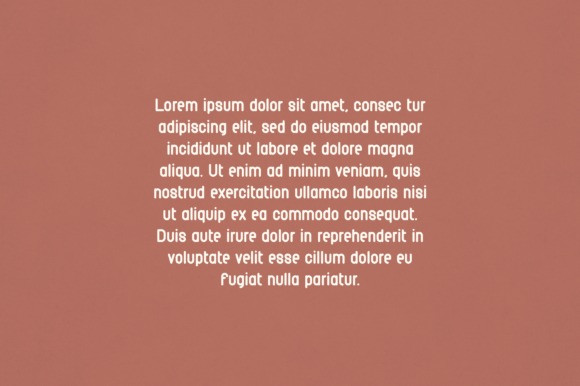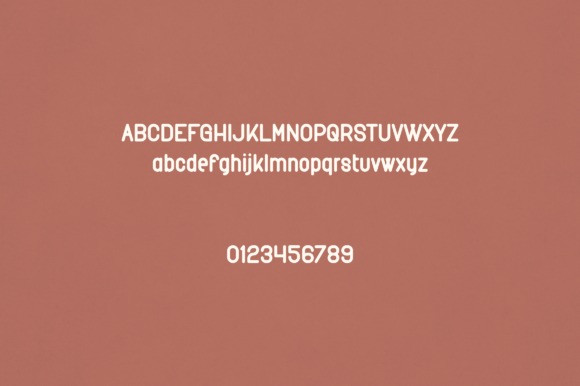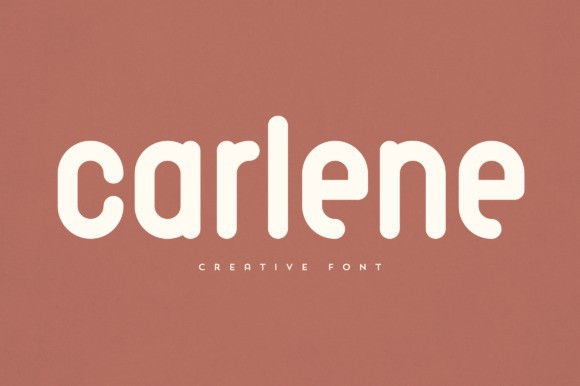
Carlene Font
Carlene Font is an elegant and versatile sans serif font that will make your typography truly unique! It will enchant every logo, branding, headline, or plain text!